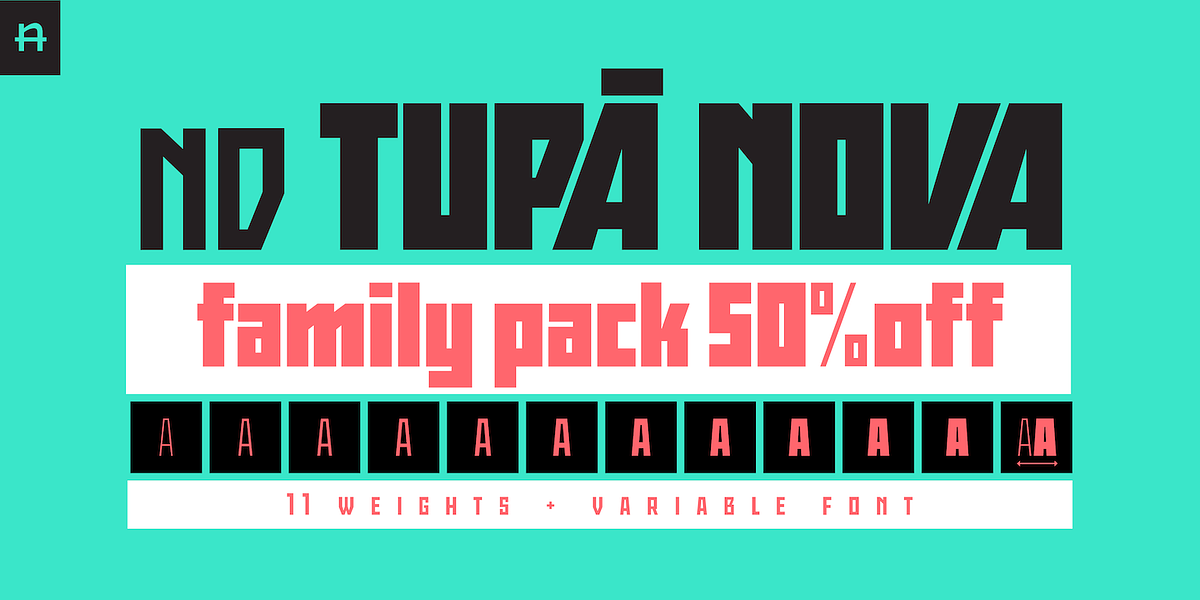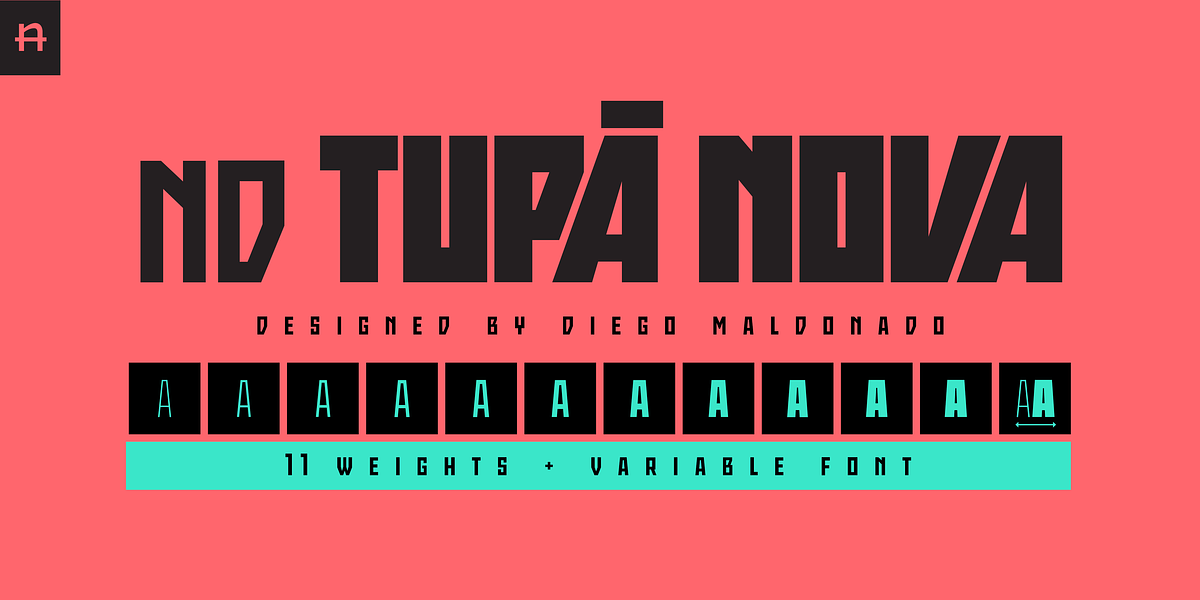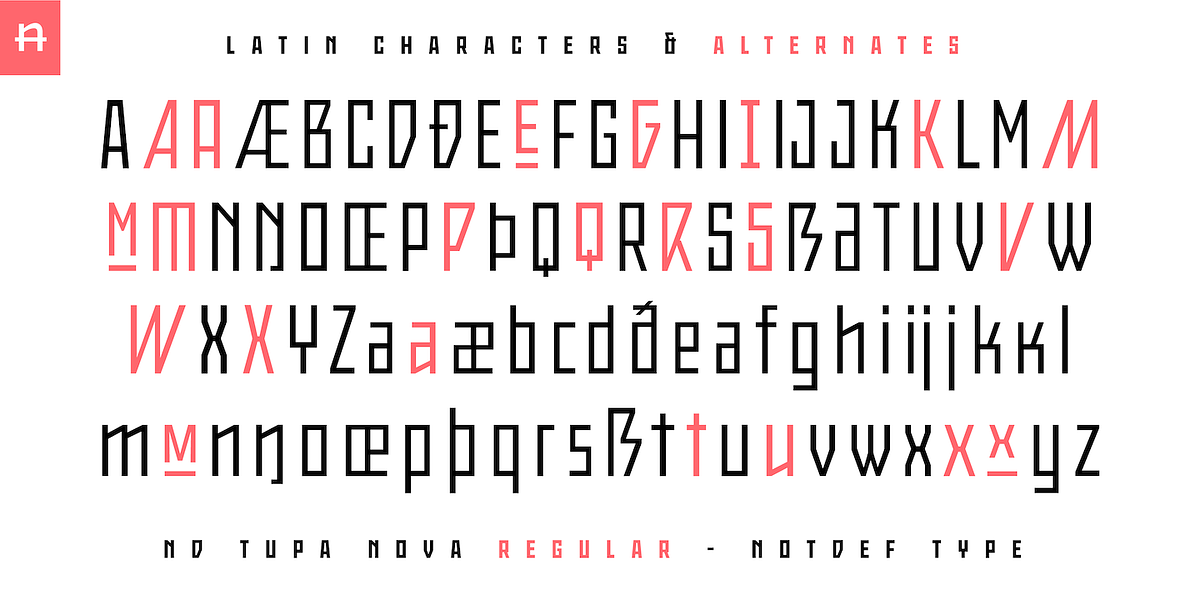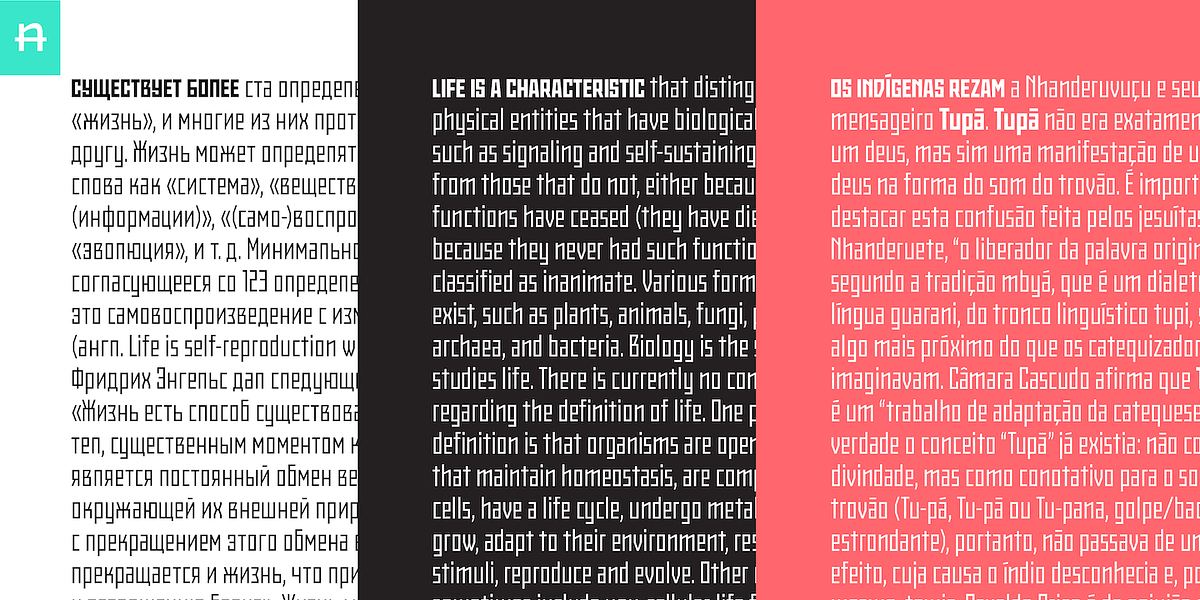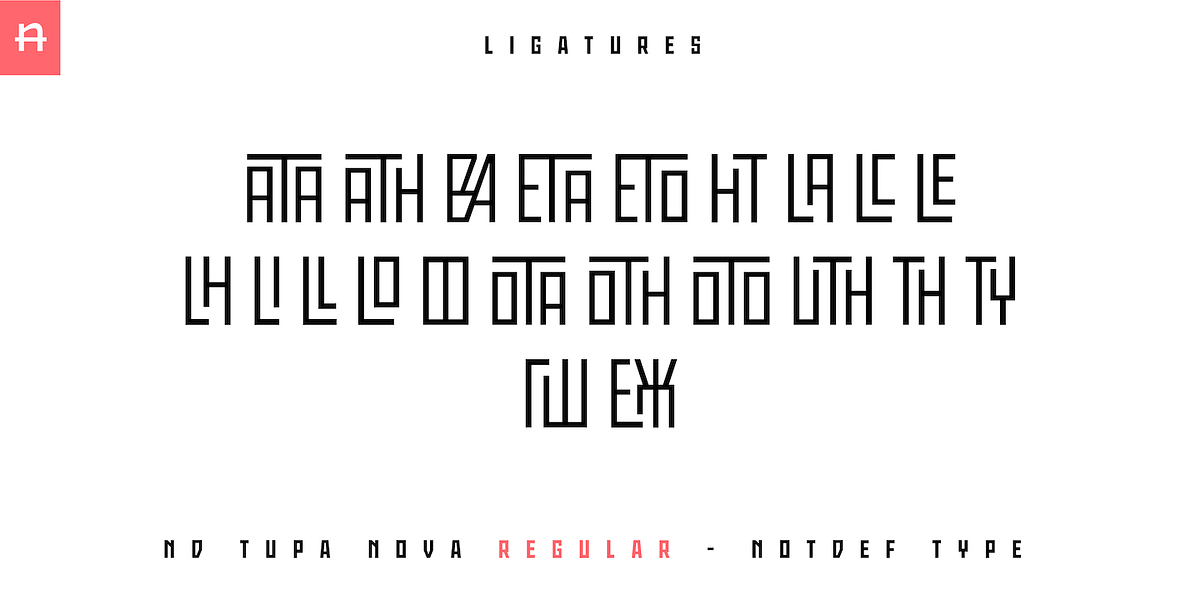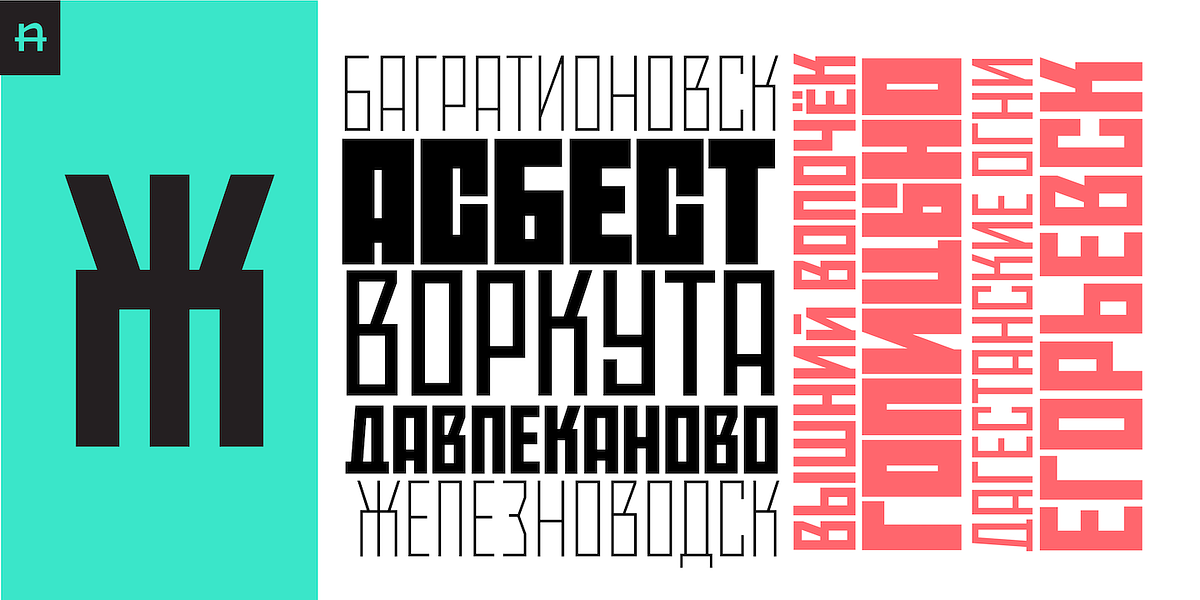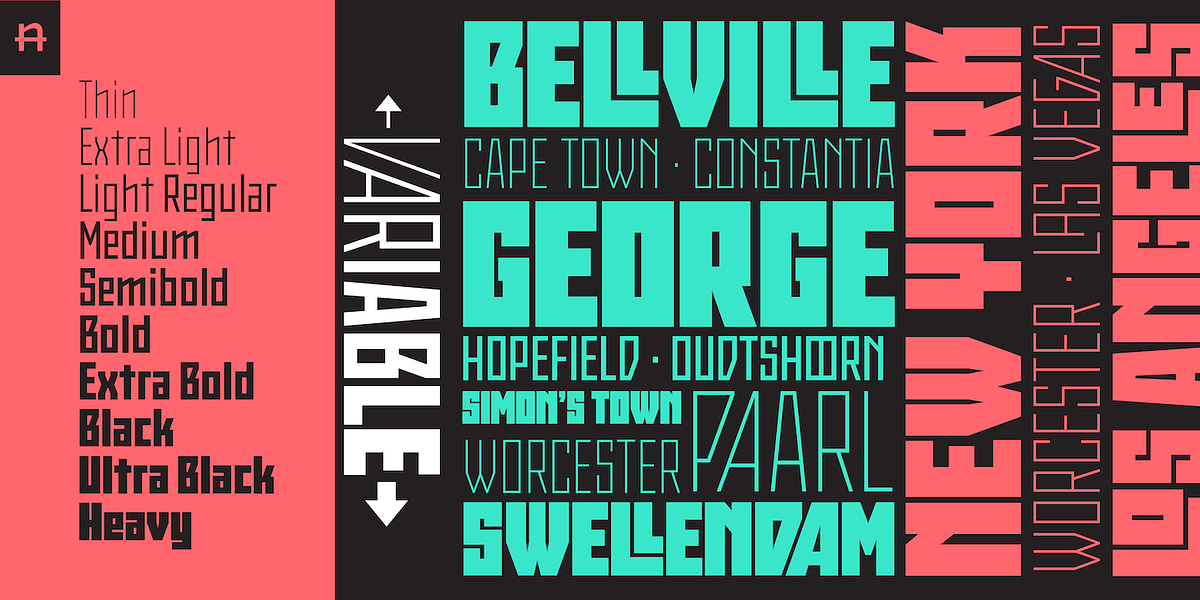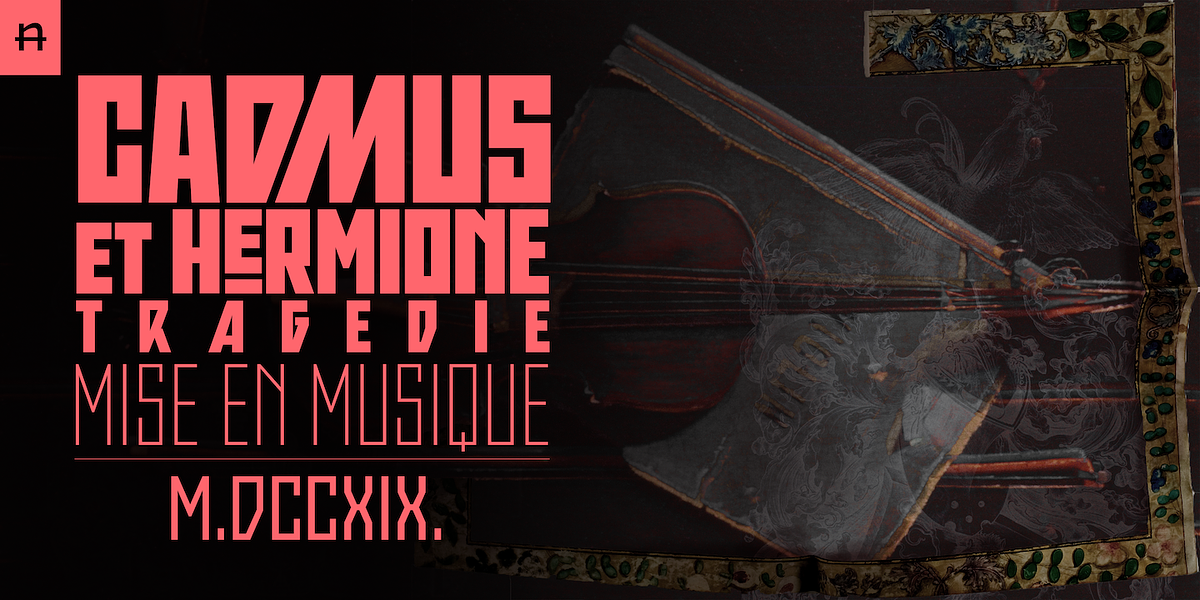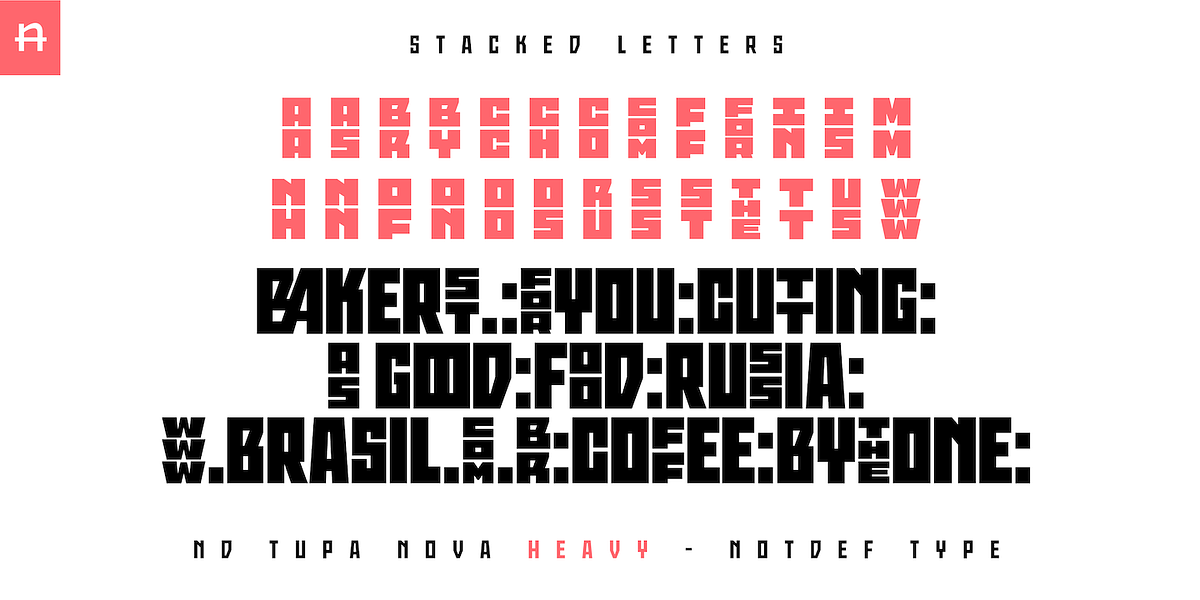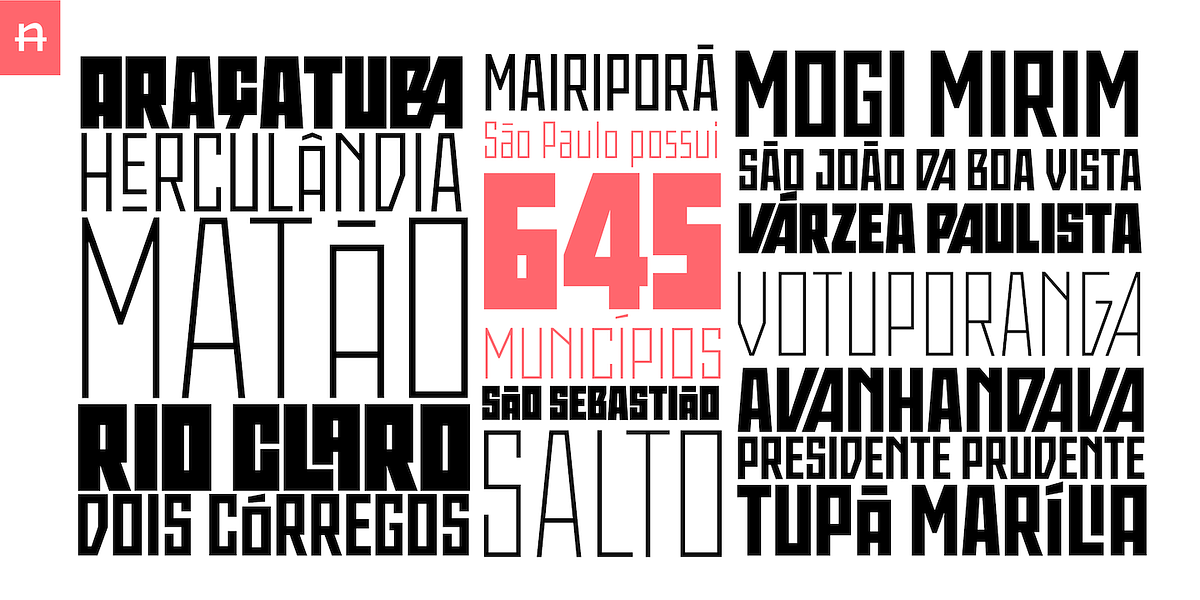
Nd Tupa Nova
Tupã is a geometric sans serif typeface inspired by the Brazilian indigenous god of thunder. Its design features both heavy weights for impactful layouts and light weights suitable for conveying subtle yet strong messages. The font includes a wide character set encompassing Cyrillic, Small Caps, Ligatures, regular and tabular numbers, and numerous alternates. Tupã's design prioritizes tight leading, even with diacritics, offering alternate characters to ensure readability. The availability of a variable font version further enhances its versatility.